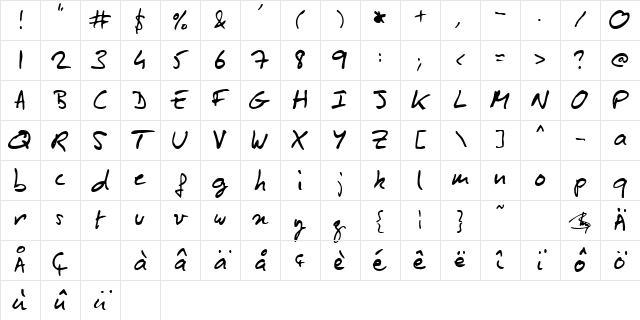
Benjamin Plain Free Font
Benjamin Plain
Benjamin Family
Benjamin Plain
Design Context for Benjamin
Benjamin is a composed and adaptable typeface that performs quietly and consistently across a wide range of design contexts.